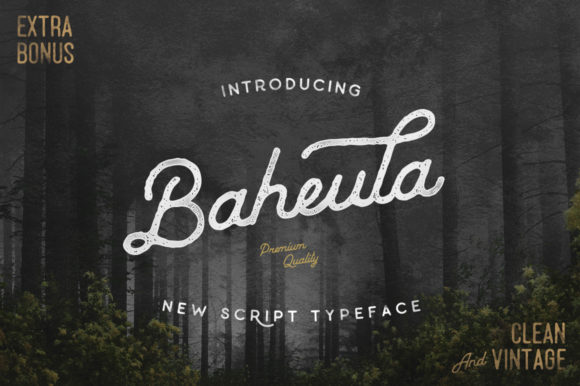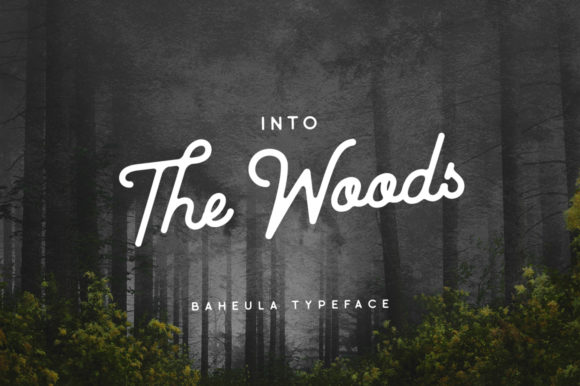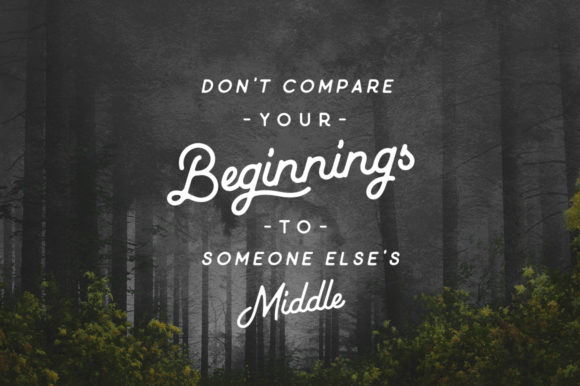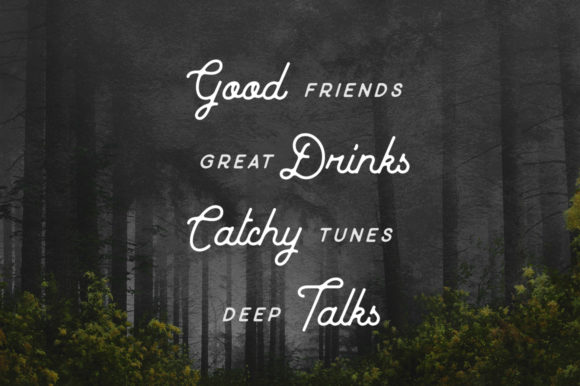
Baheula Font
About Baheula Font
Baheula is a vintage, fun handwritten font, created by using a brush pen. Clean and a little bit quirky, this font is the perfect fit for all of your logos, branding, social media, and crafty DIY projects.